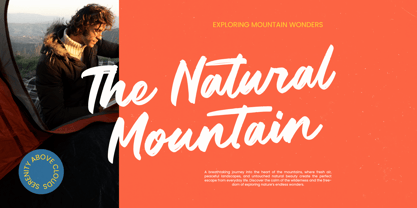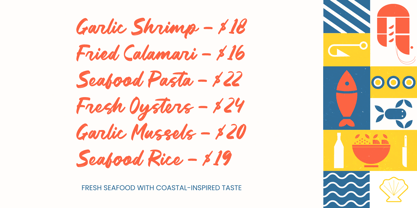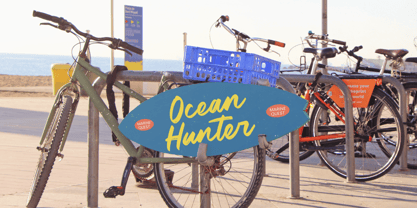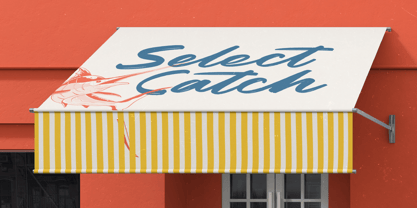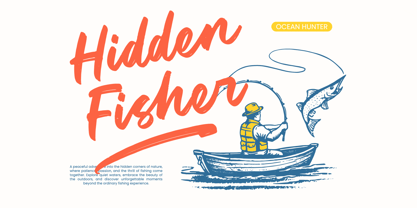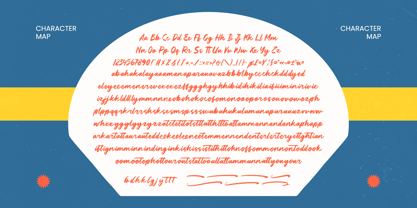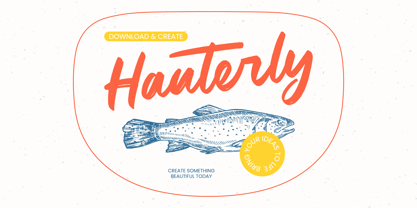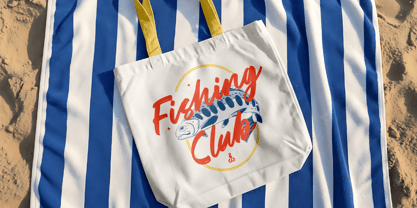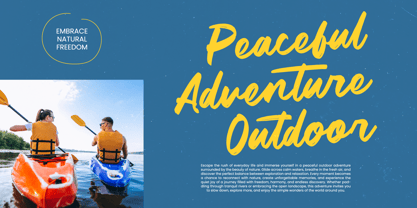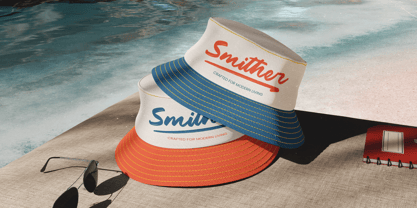
Hauterly
La famille de polices Hauterly a été conçue par Heru Utama Putra et publiée par Letterena Studios. Hauterly contient 2 styles et options de package familial. En savoir plus sur cette famille
Hauterly - Bold Handwritten Font
Elevate your creative vision with a typeface that radiates expressive energy and unfiltered authenticity. The Hauterly - Bold Handwritten Font captures the fluid motion of natural handwriting, blending bold brush strokes with a sophisticated modern aesthetic. This font is meticulously crafted to ensure your message stands out with a commanding presence and a personalized touch that standard digital typefaces simply cannot replicate.
Designed for maximum visual impact, this versatile typeface serves as the ultimate solution for premium creative projects. Whether you are developing luxury branding, high-end product packaging, or dynamic editorial layouts, the Hauterly - Bold Handwritten Font is perfect for creating a distinctive identity. Its expansive array of 179 ligatures and unique swashes allows designers to achieve a truly customized feel in every professional composition.